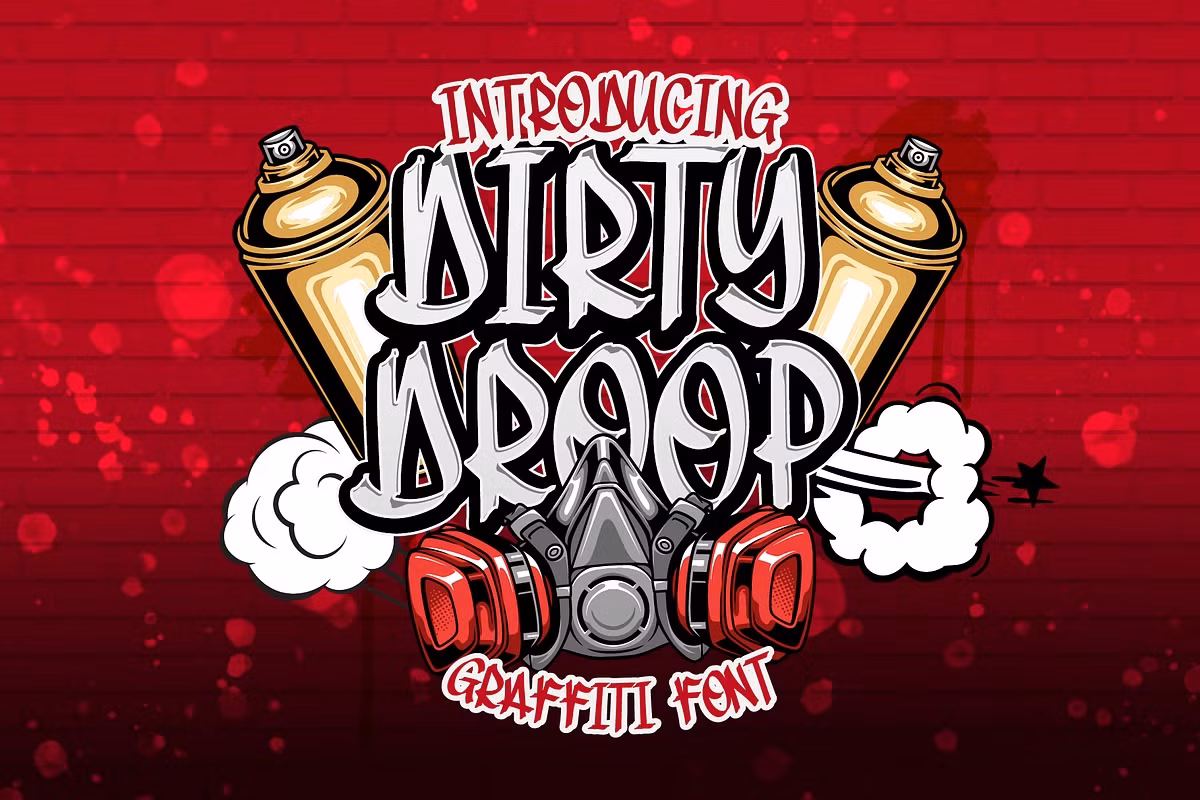
Bring urban energy and street attitude to your designs with DIRTYDROOP Graffiti Font Free Download — a raw, bold typeface inspired by graffiti tags and underground culture. With dripping strokes, rugged edges, and rebellious style, this font is perfect for music flyers, streetwear branding, album covers, skateboarding merch, and any project that demands bold expression.
DIRTYDROOP captures the essence of graffiti art — loud, unapologetic, and creative. It includes uppercase letters, numbers, punctuation, and multilingual support, giving you everything you need to create an urban vibe that stands out from the crowd.